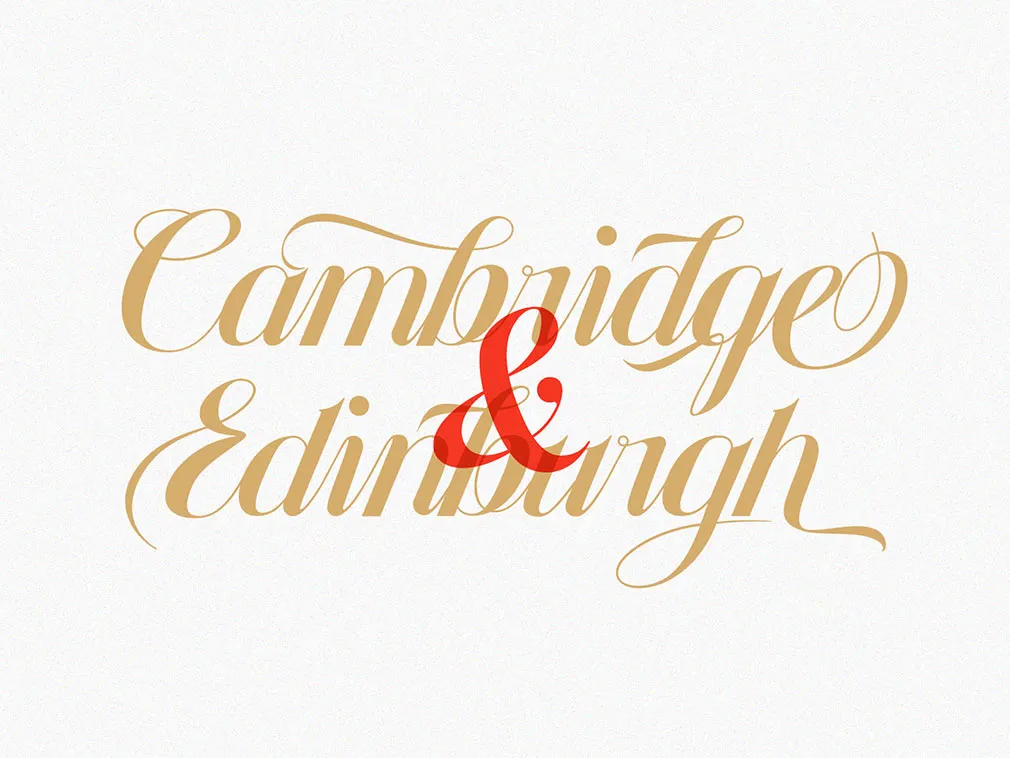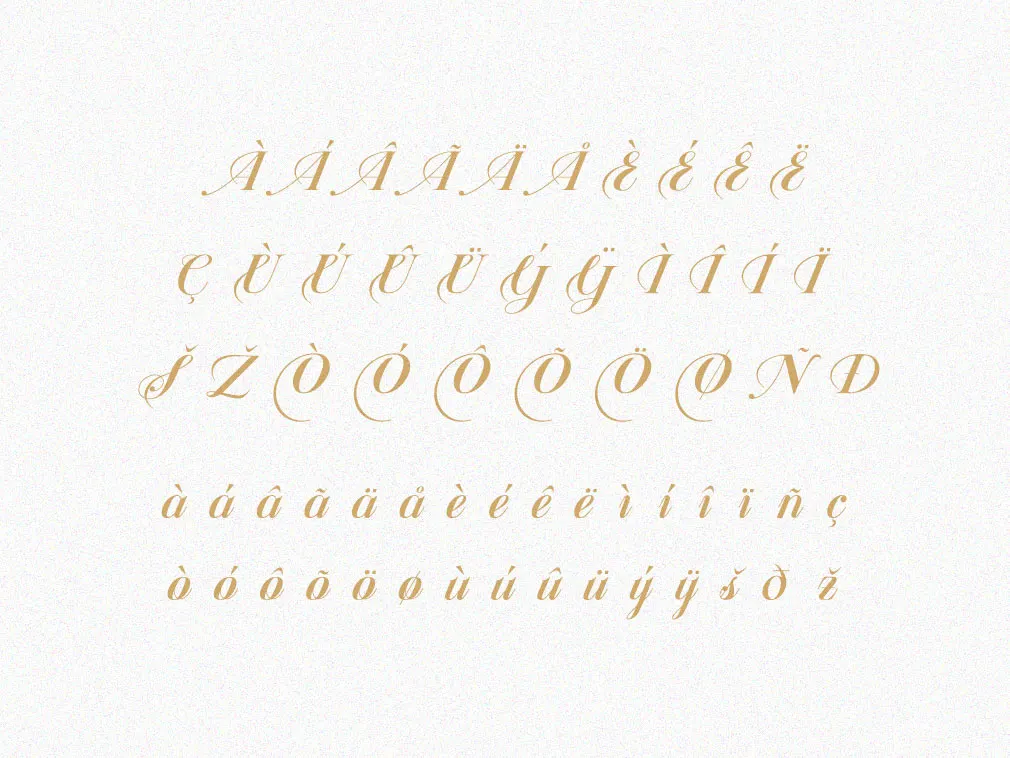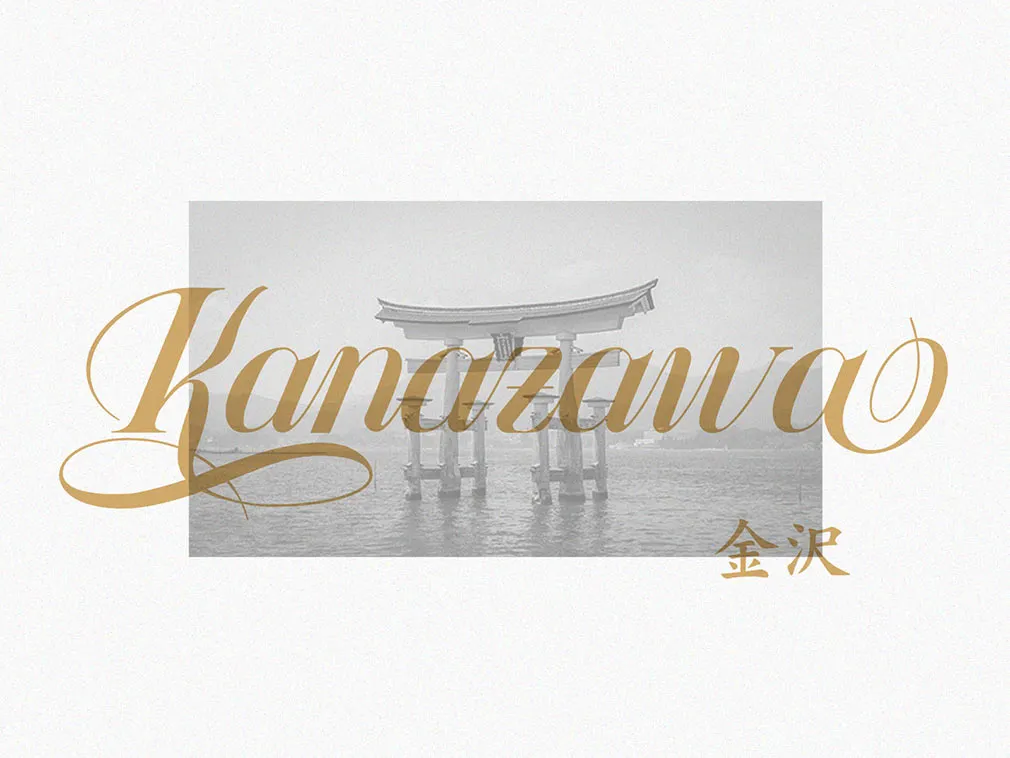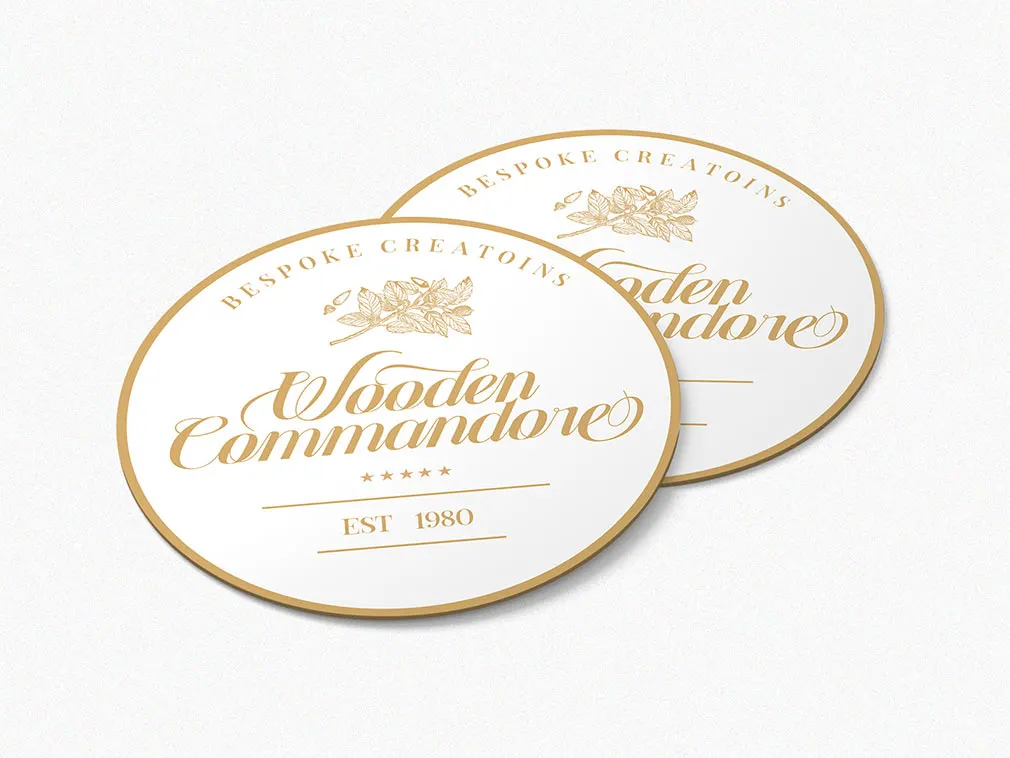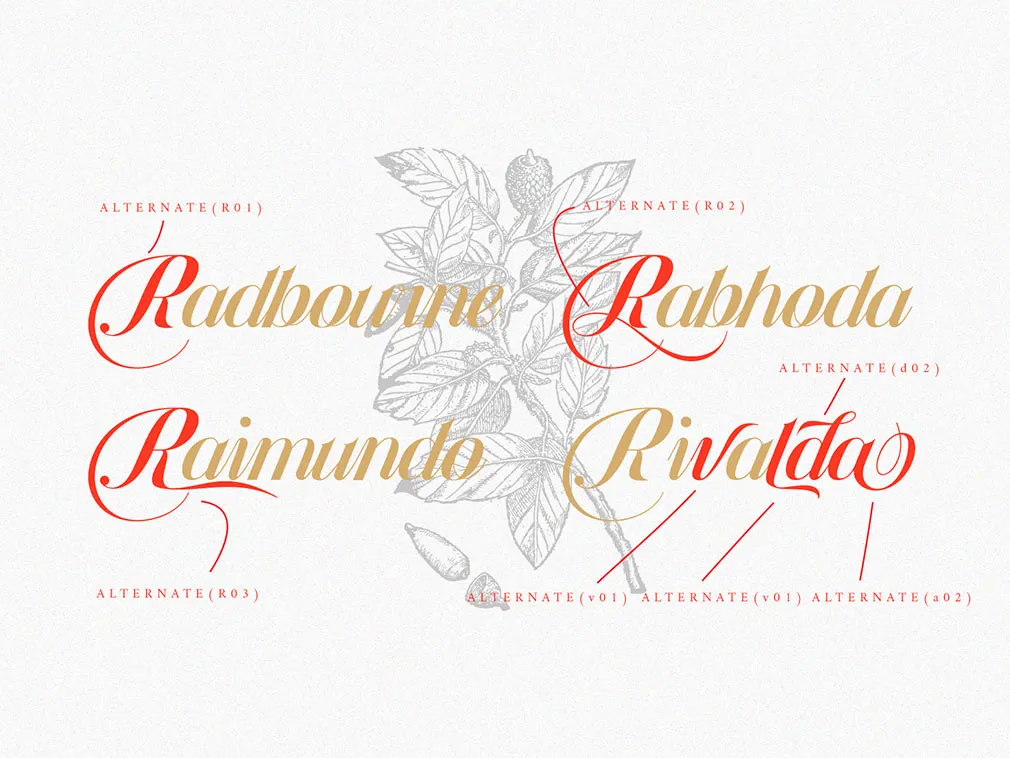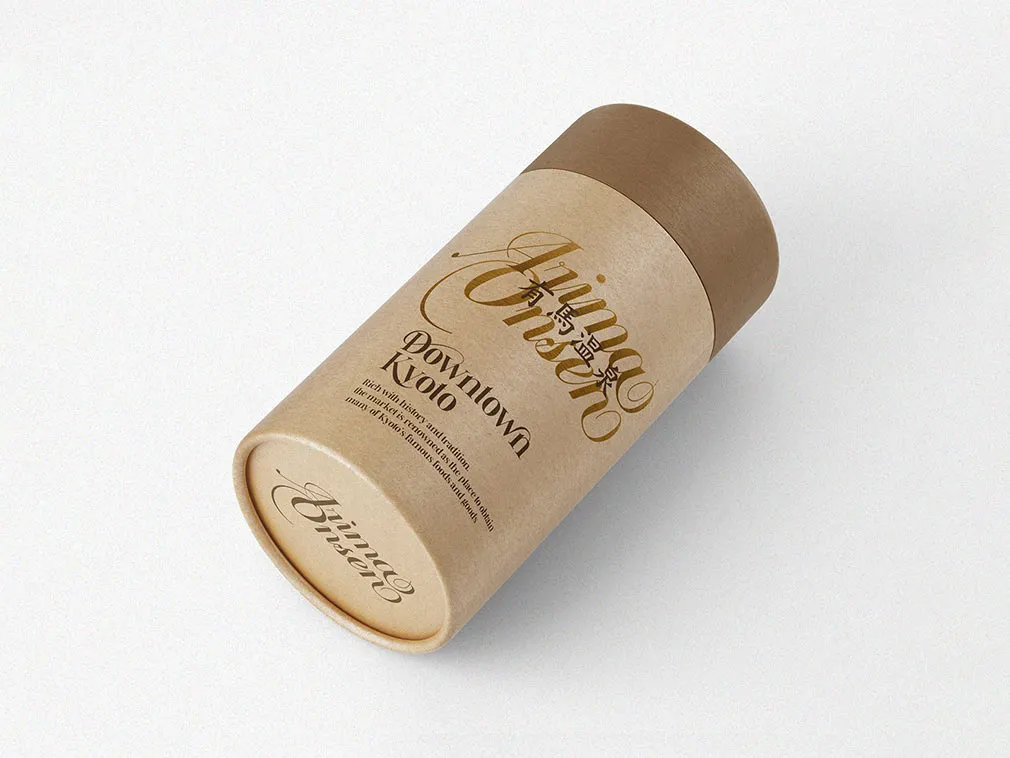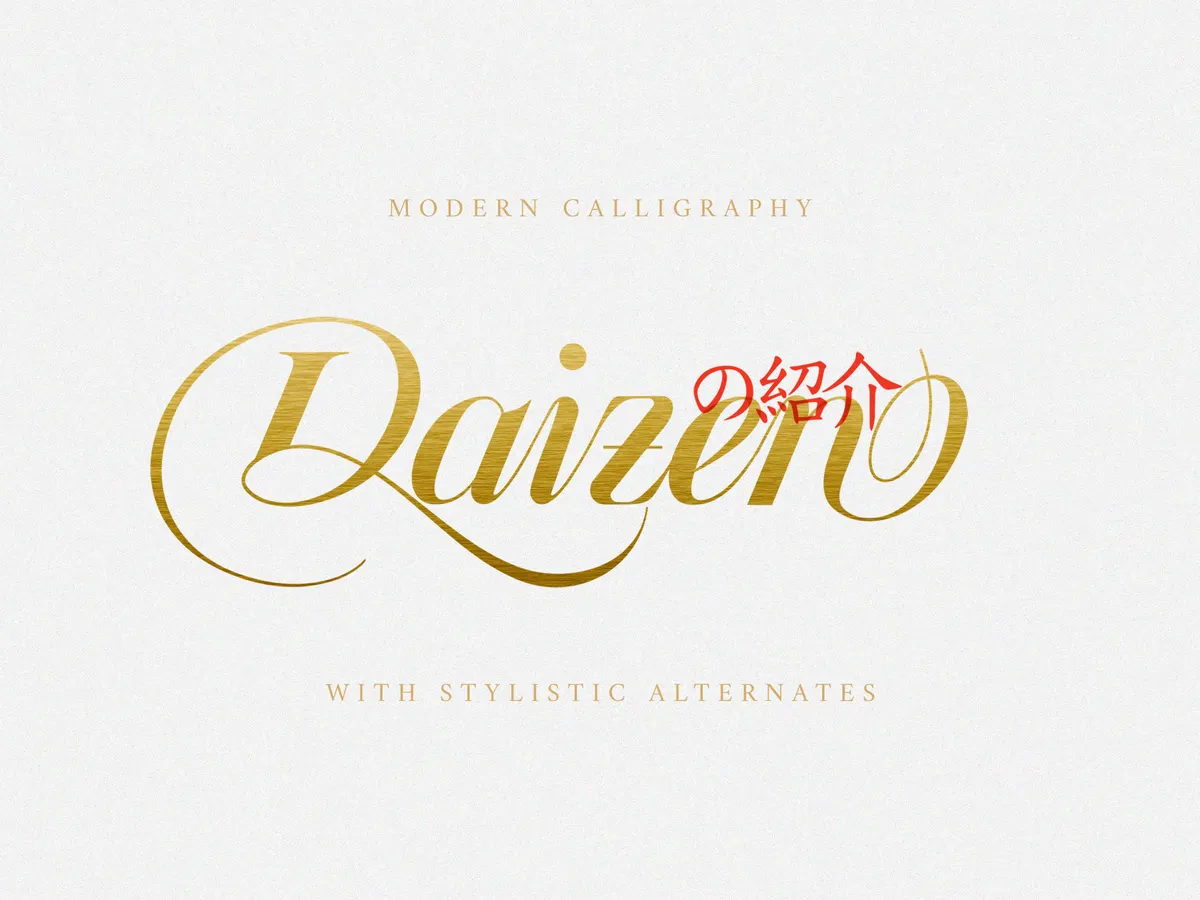
Daizen Script Font
The art of calligraphy has come a long way from ancient times to these days when it can obtain new forms. Like this astonishing script font with the curves making your head go round.Beautiful classic script with its cleanly looping ascenders and descenders, as well as elegant uppercase forms, represents a free-spirited typeface for a wide variety of use. It works perfectly for creative projects like logotypes, T-shirts/apparel design, invitations, packaging, headlines, posters and greeting cards. You can access the open type features and multilingual support as well. Behold the very soft but terse curves, watch its low slant angles making the font legible and aesthetic.